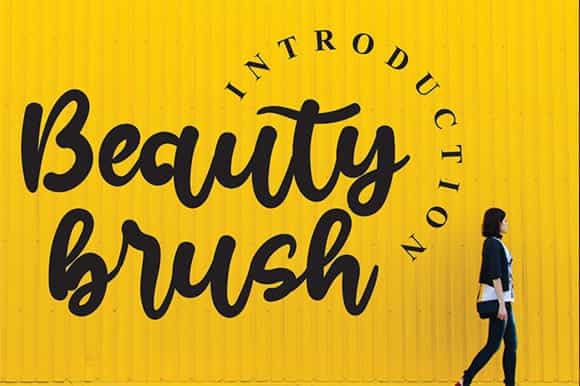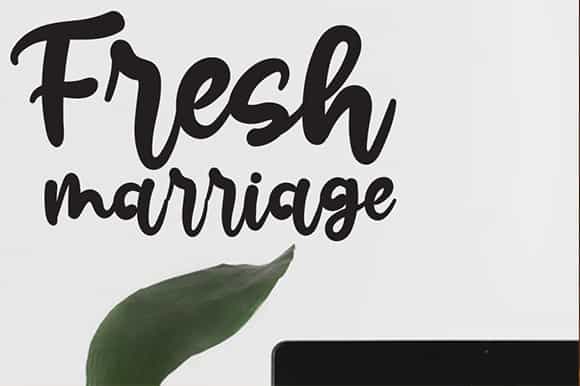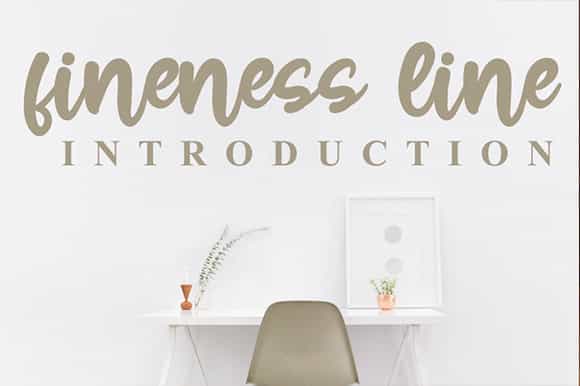
Discover Beauty Brush Script Font, part of the Brush collection—a versatile and unique font perfect for adding a personal touch to your projects. Download it for free and enjoy crafting designs with style, from invitations to social media posts. This font is available exclusively for personal use, giving you the freedom to create without limits. Unlock your creativity with Beauty Brush Script Font today!
“Beauty Brush Font” is a package of letters that are suitable for the use in various fields including; wall arts, wedding invitations, social media marketing, logos, adverts, product packaging, designs, labels, photography watermarks, invitations, stationery, and in any other project that would require elegant handwritten style.